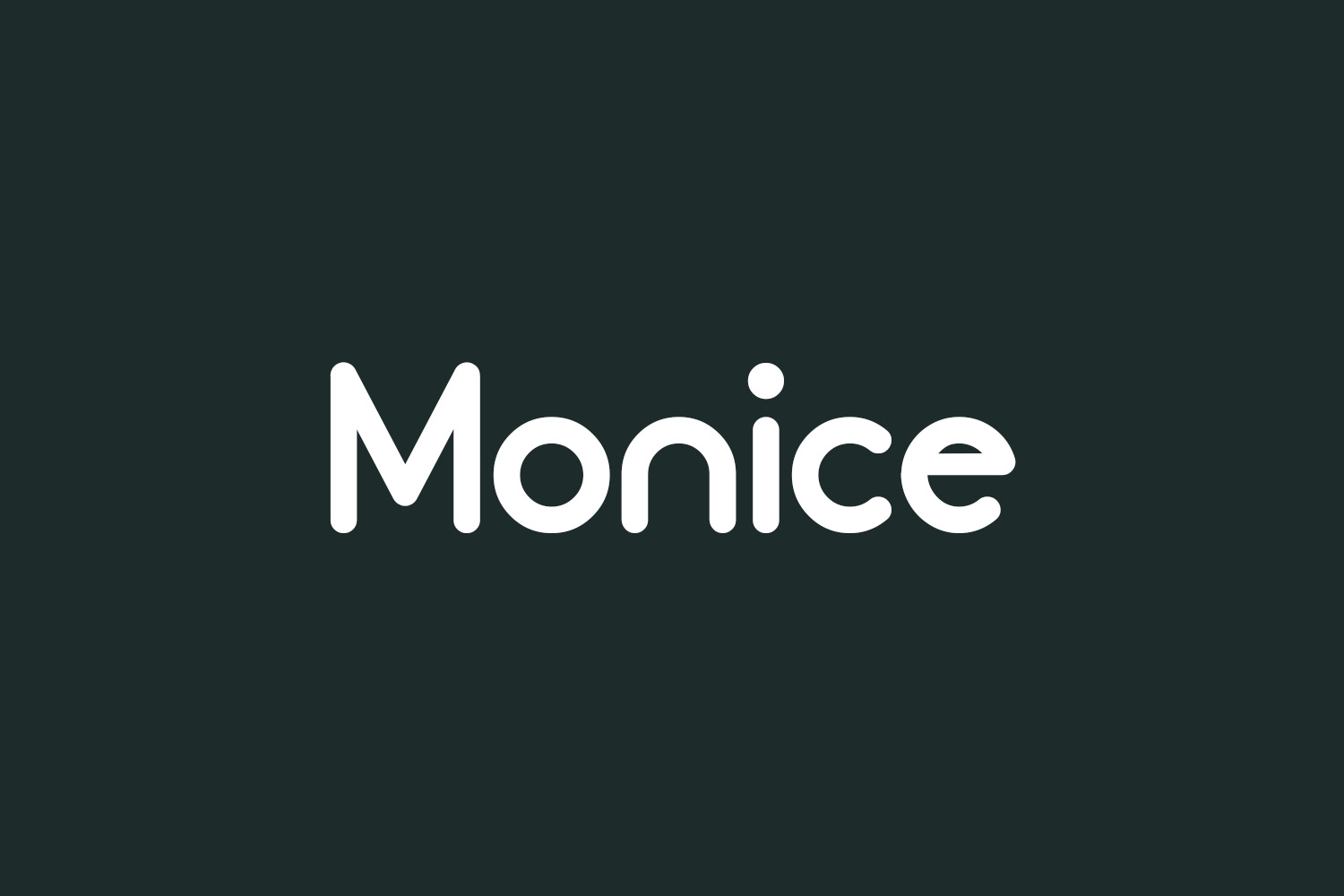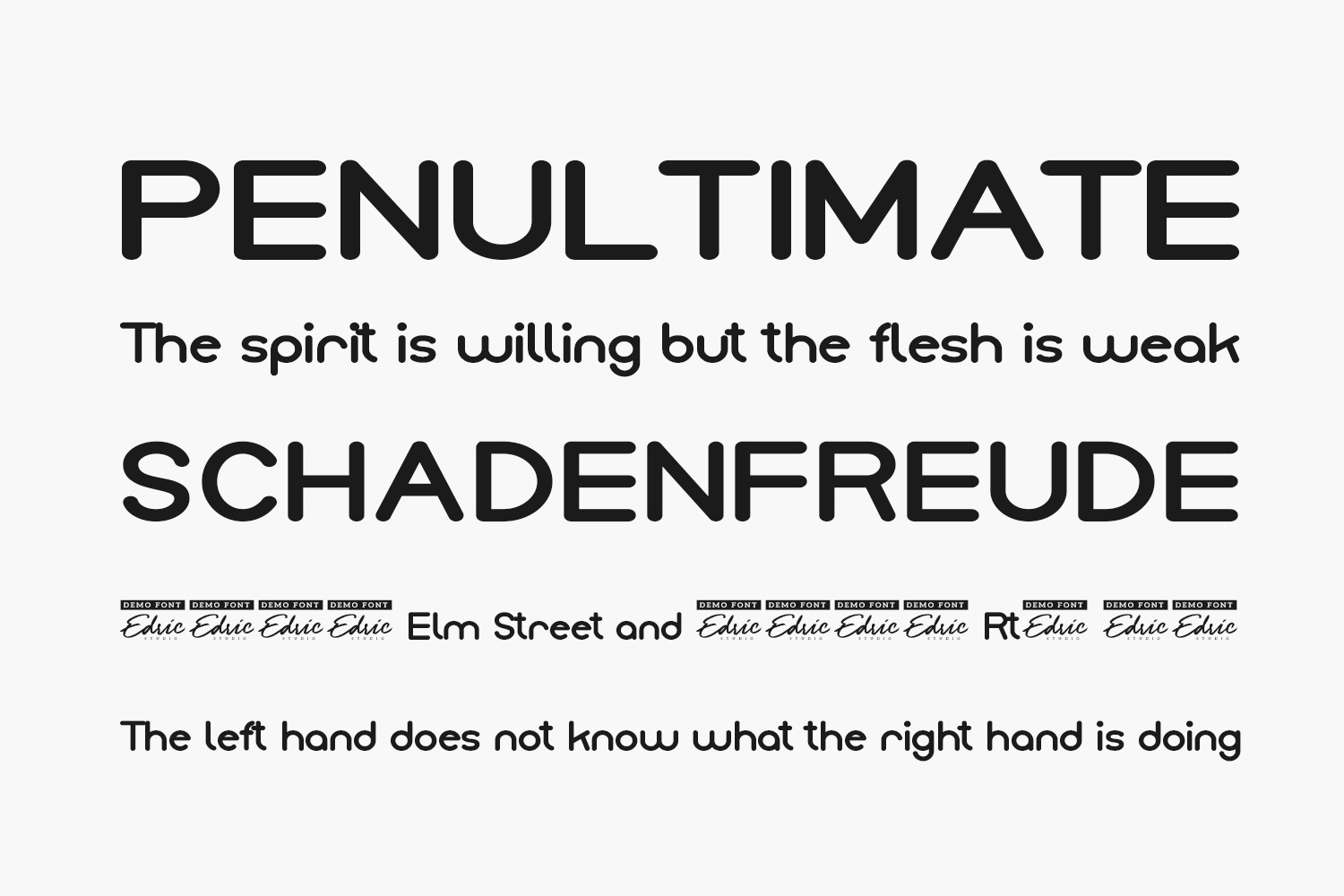
Monice Free Font Family is a modern sans serif typeface with a casual style. The styles of this font are elegant, modern, stylish, and minimal. Monice Font will be great for any projects, including branding, logo, stationery, business card, signage, flyer, and brochure. Monice Free Font Family was designed by Edric Studio is a demo and free for personal use only. Please purchase the full version for commercial use.